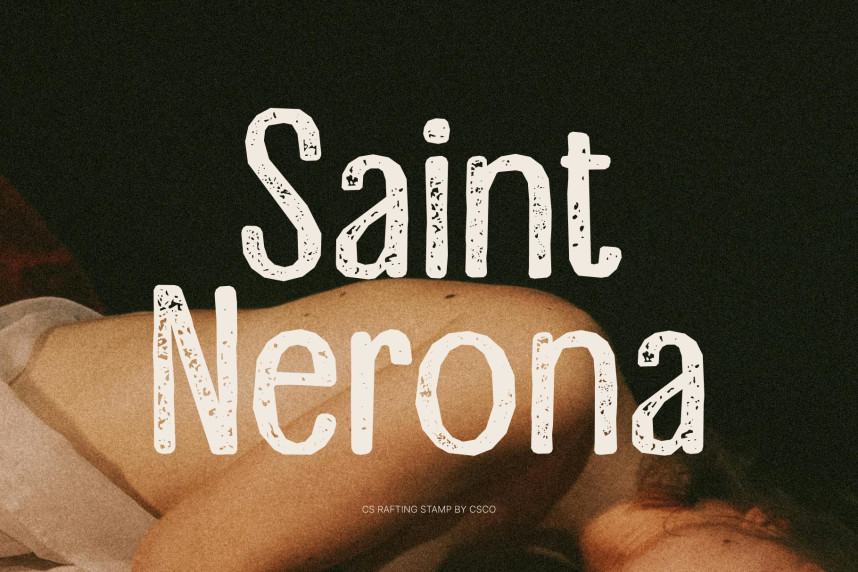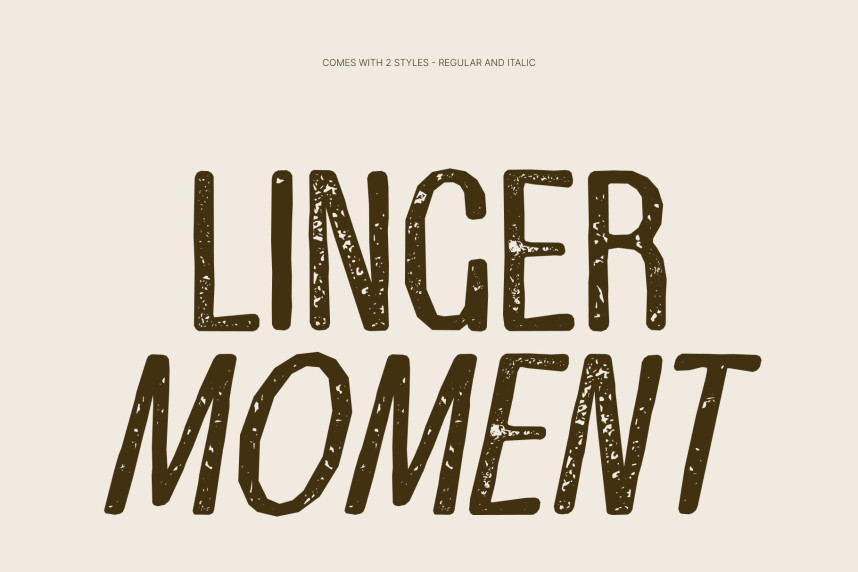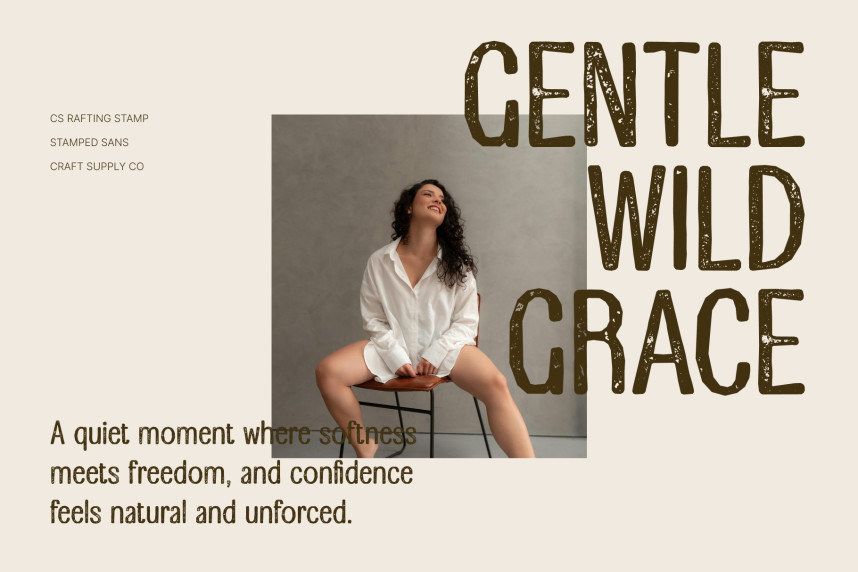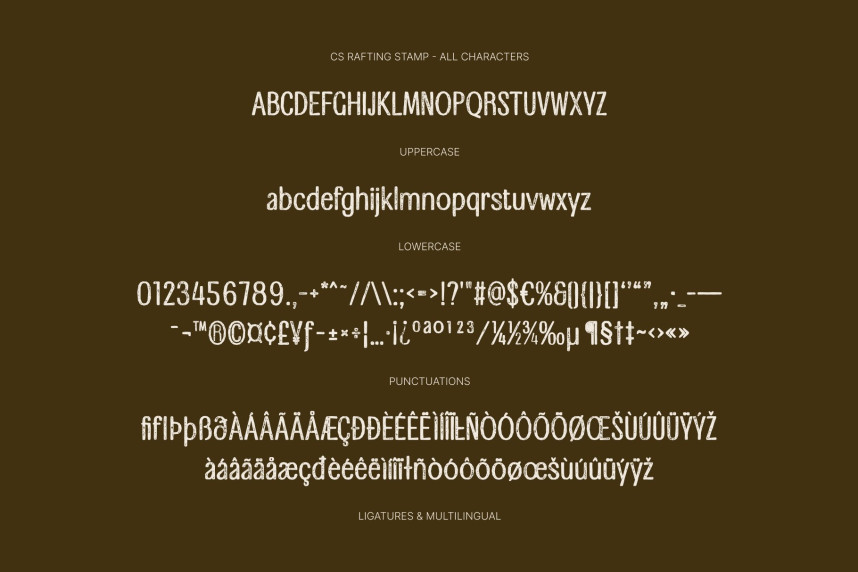
CS Rafting Stamp Font
CS Rafting Stamp Font – Modern Sans Serif Font: Where Contemporary Elegance Meets Vintage Craftsmanship
Confident Elongated Forms with Premium Character
This is a modern sans serif font designed with confident elongated letterforms that create a sleek, refined, and authoritative visual presence. Its balanced proportions and contemporary structure deliver a sophisticated atmosphere that feels premium, stylish, and highly professional. Every character radiates clarity and elegance while maintaining a bold modern personality.